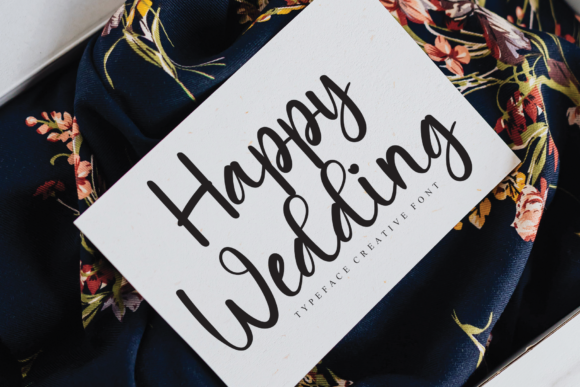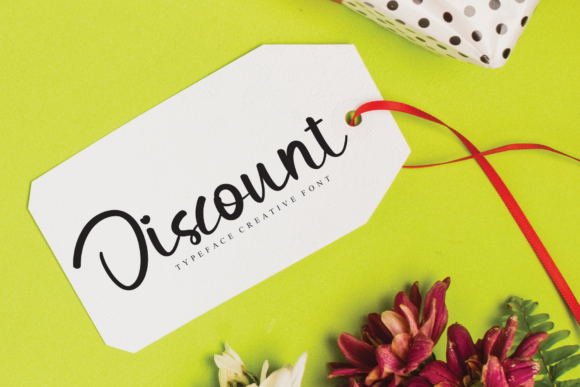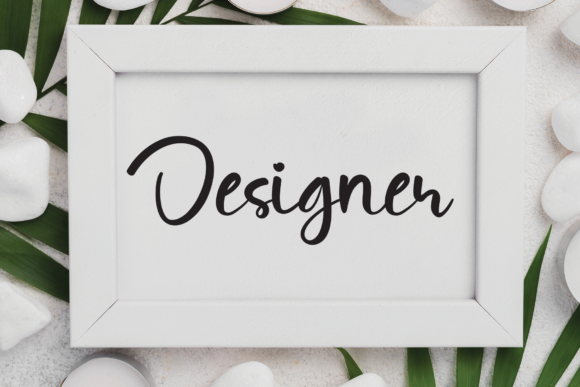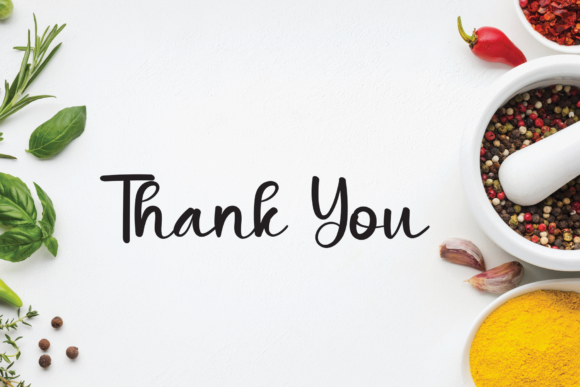
Valentine Signature Font
About Valentine Signature Font
Valentine Signature is a romantic and sweet calligraphy typeface with characters that dance along the baseline. It will add a luxury spark to any design project that you wish to create!